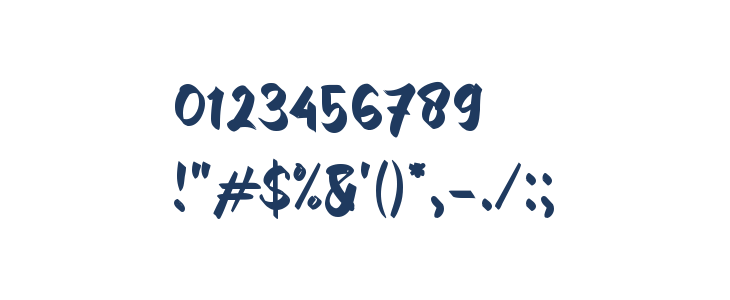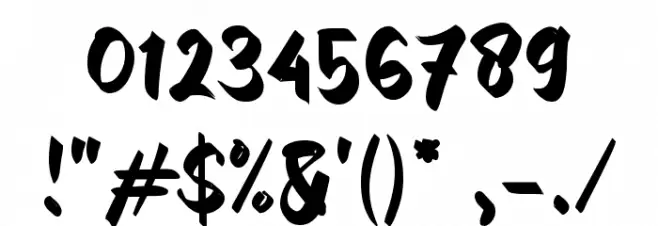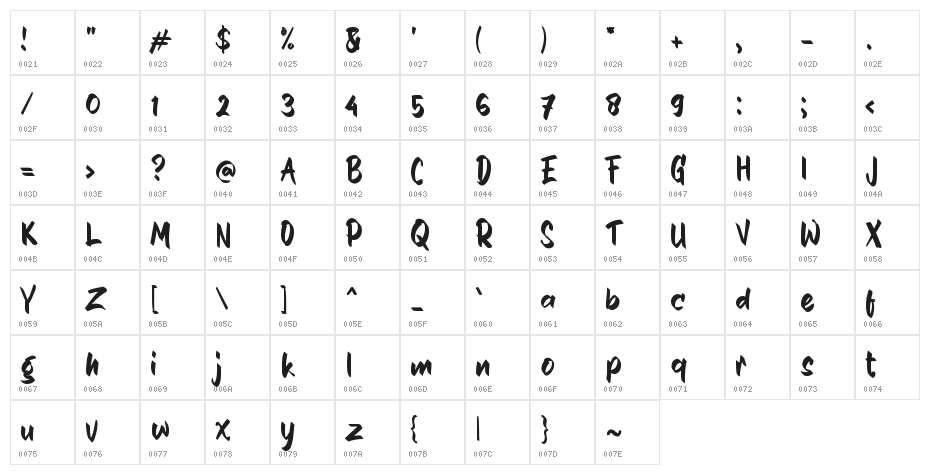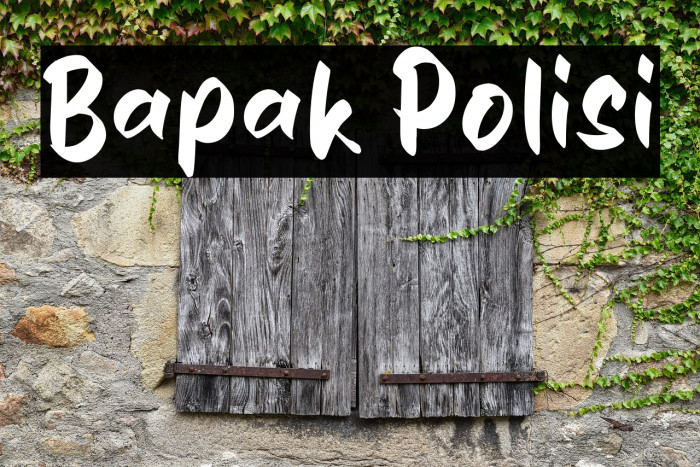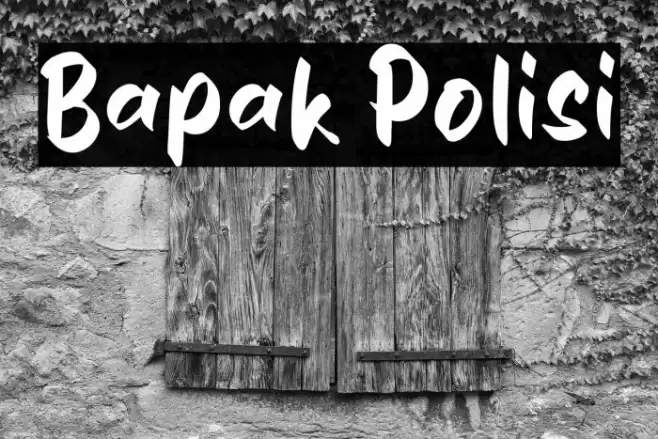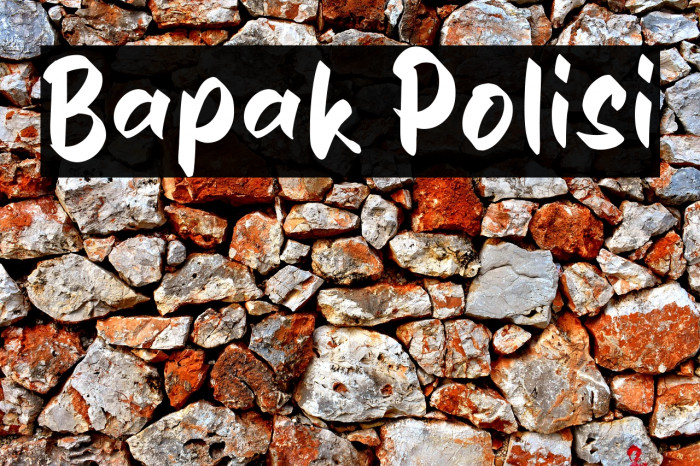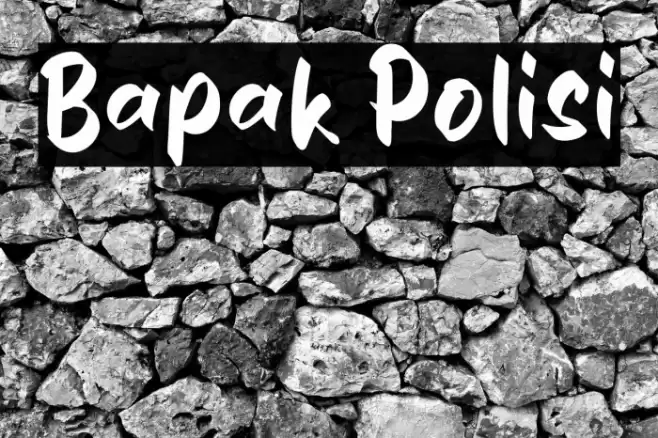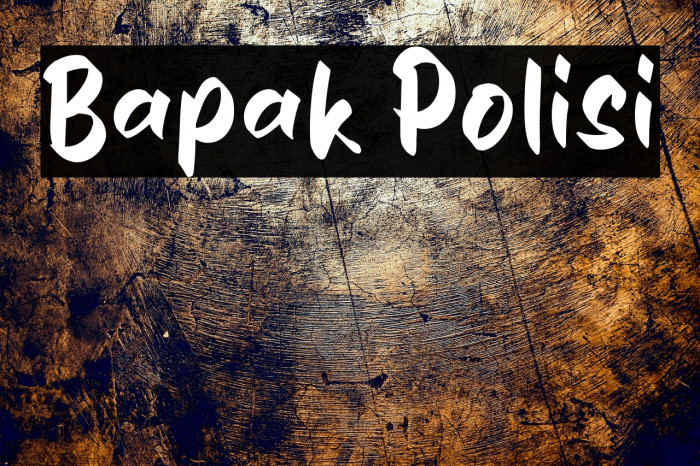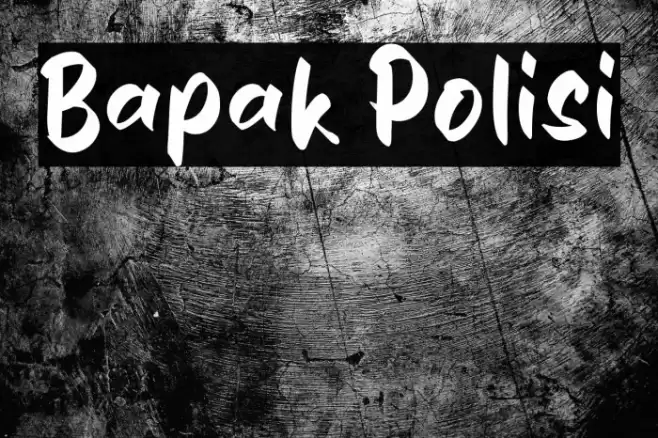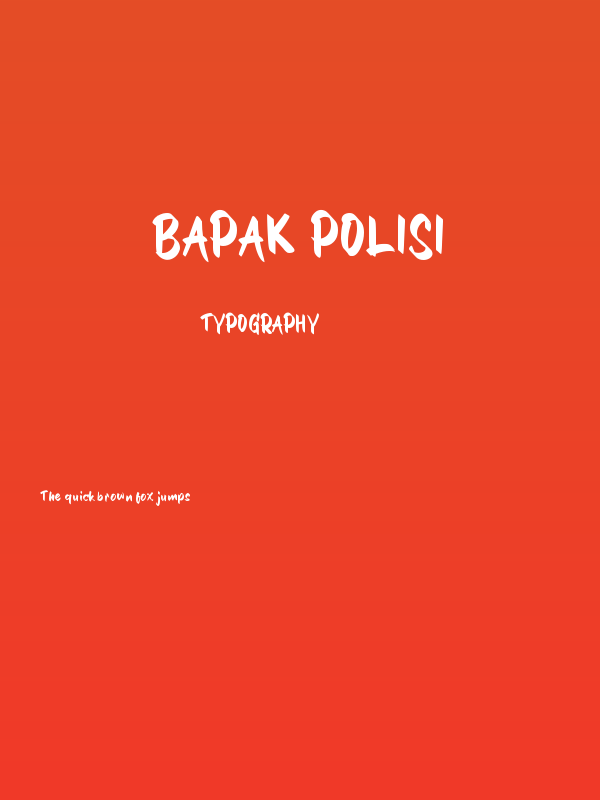
Bapak Polisi Font
Bapak Polisi Description
This font features a bold and dynamic handwritten style, characterized by its thick strokes and energetic flow. The letters are slightly slanted, giving a sense of movement and spontaneity. The uppercase and lowercase letters maintain a consistent style, with rounded edges and a playful appearance. Numbers and special characters are equally expressive, making them suitable for creative and informal designs. The overall look is casual yet impactful, perfect for grabbing attention.
| Proposed Projects | Ideal for posters, invitations, branding, and social media graphics where a lively and informal tone is desired. |